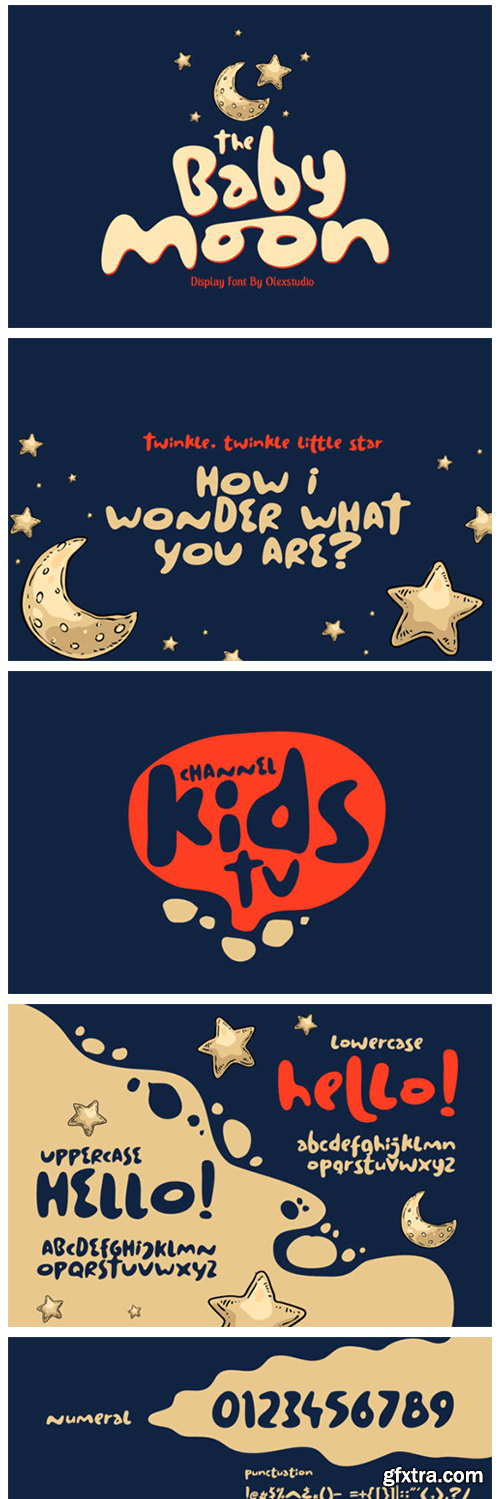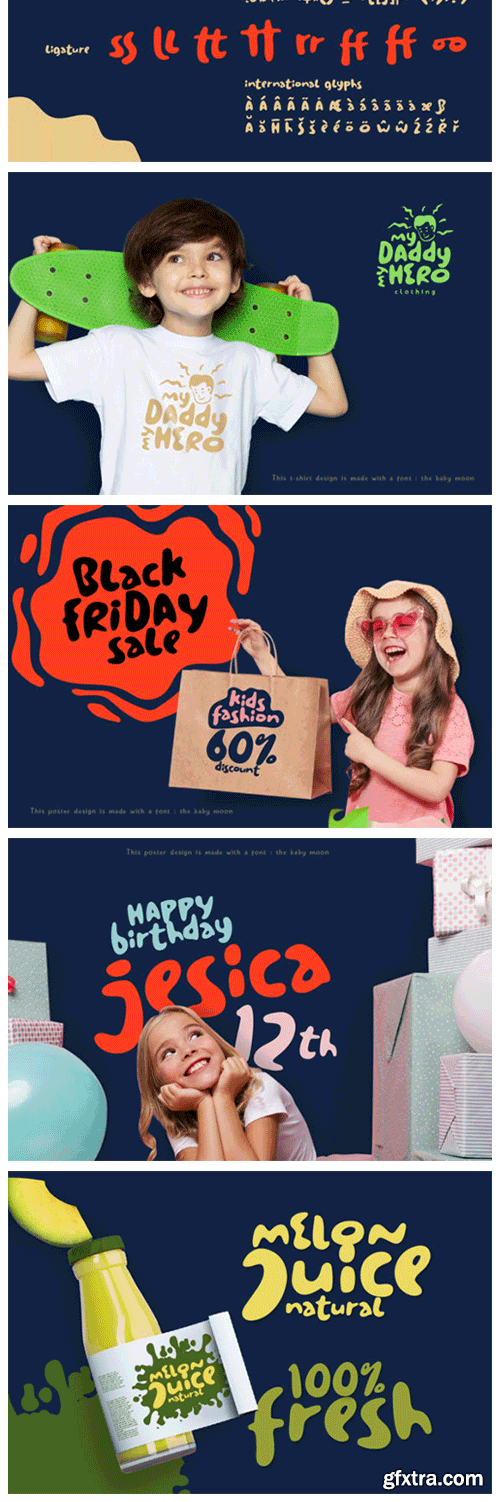
The Baby Moon Font
The Baby Moon is an incredibly sweet and friendly display font. It will look gorgeous on all your baby related projects. Fall in love with it and bring your projects to the highest levels!